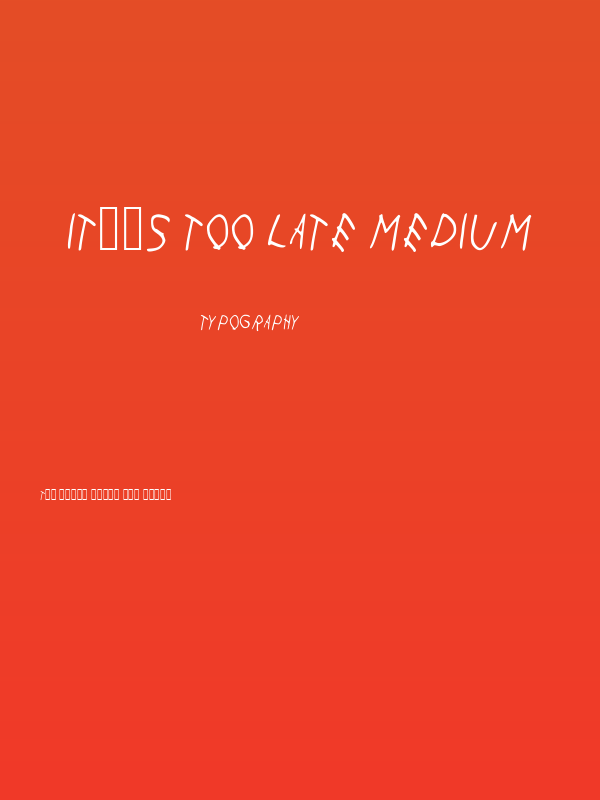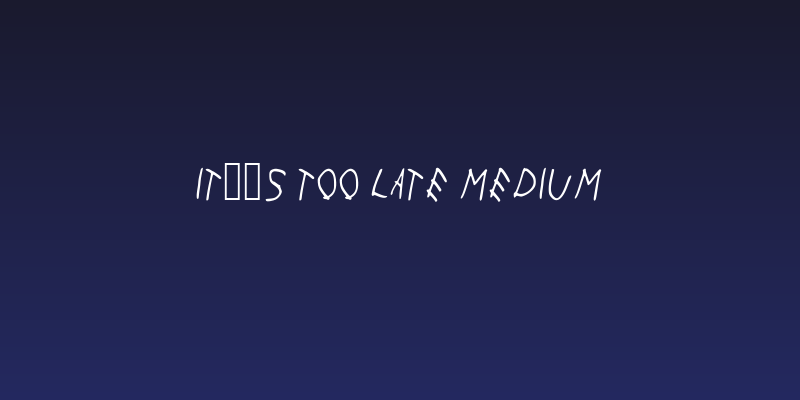
It's Too Late Medium Font
It's Too Late Medium Description
This font features a playful and informal handwritten style, characterized by its slightly slanted and irregular letterforms. The strokes are uneven, giving it a casual and dynamic appearance. The uppercase letters are distinct with a whimsical flair, while the lowercase letters maintain a consistent flow, enhancing readability. The overall design exudes a sense of spontaneity and creativity, making it suitable for projects that require a personal touch. The font's unique style can add a lively and engaging element to any design, making it stand out.